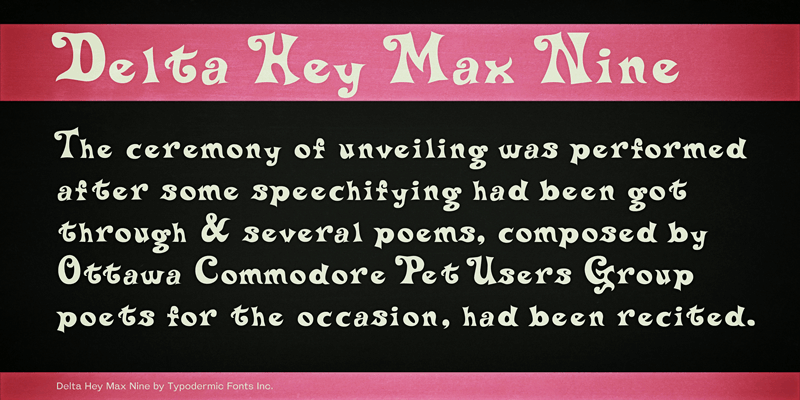
Delta Hey Max Nine is a silly, retro curly display font. This font includes a license that allows free commercial use: sometimes referred to as a desktop license. This allows you to install the font on a computer and use it to create posters, web graphics, game graphics, t-shirts, videos, signs, logos and more. Read the license agreement for details. If you'd like to embed this font in an app, ebook, on the web or anything that's not covered by the desktop license agreement, visit the link below. You'll find distributors who offer different types of licenses or you can contact me for help. http://typodermicfonts.com/delta-hey-max-nine/ |